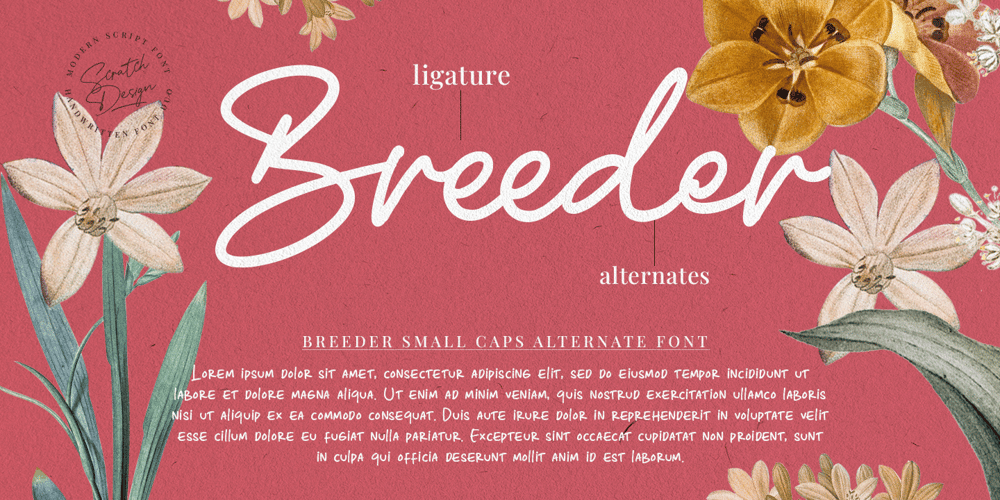
Breeder
Breeder font
Breeder Font Family was designed by Gitayogi Irhandi and published by Scratch Design. Breeder contains 2 styles and family package options. Introducing Breeder Font Duo it’s a handwritten script. Enjoy this playful font in your designs with Breeder Script & Breeder Small Caps! This playful font consists of a natural handwritten and signature style, so this font is perfect for logos, menu design, social media posts, packaging, poster, name card, birthday card, etc.Breeder Script has a natural flow handwritten signature containing upper & lowercase characters, numerals, and punctuation. This font also has a ligature, stylistic alternate, swashes, multi-languages support, and doodles art for the bonus of this font.Breeder Small Caps comes with a natural & simple handwritten all-caps font. Complete with a-z letters, very charming handwritten font, and perfect for combining with Breeder Script. This font also includes multi-language support.Thank you for checking and visiting our store, and feel free to drop me a message if you had any questions! Visit our Instagram 🙂 www.instagram.com/scratchdesignbali